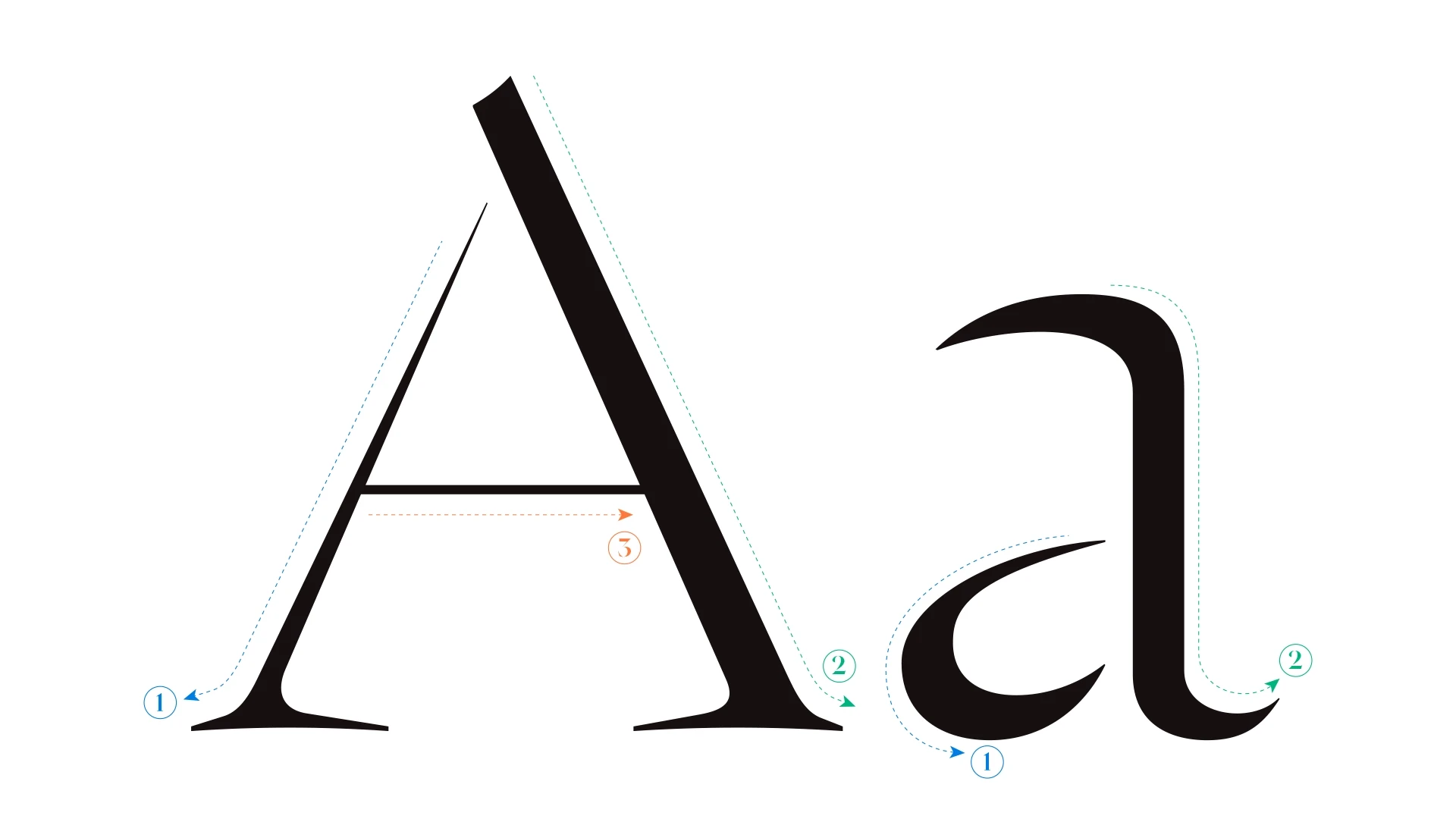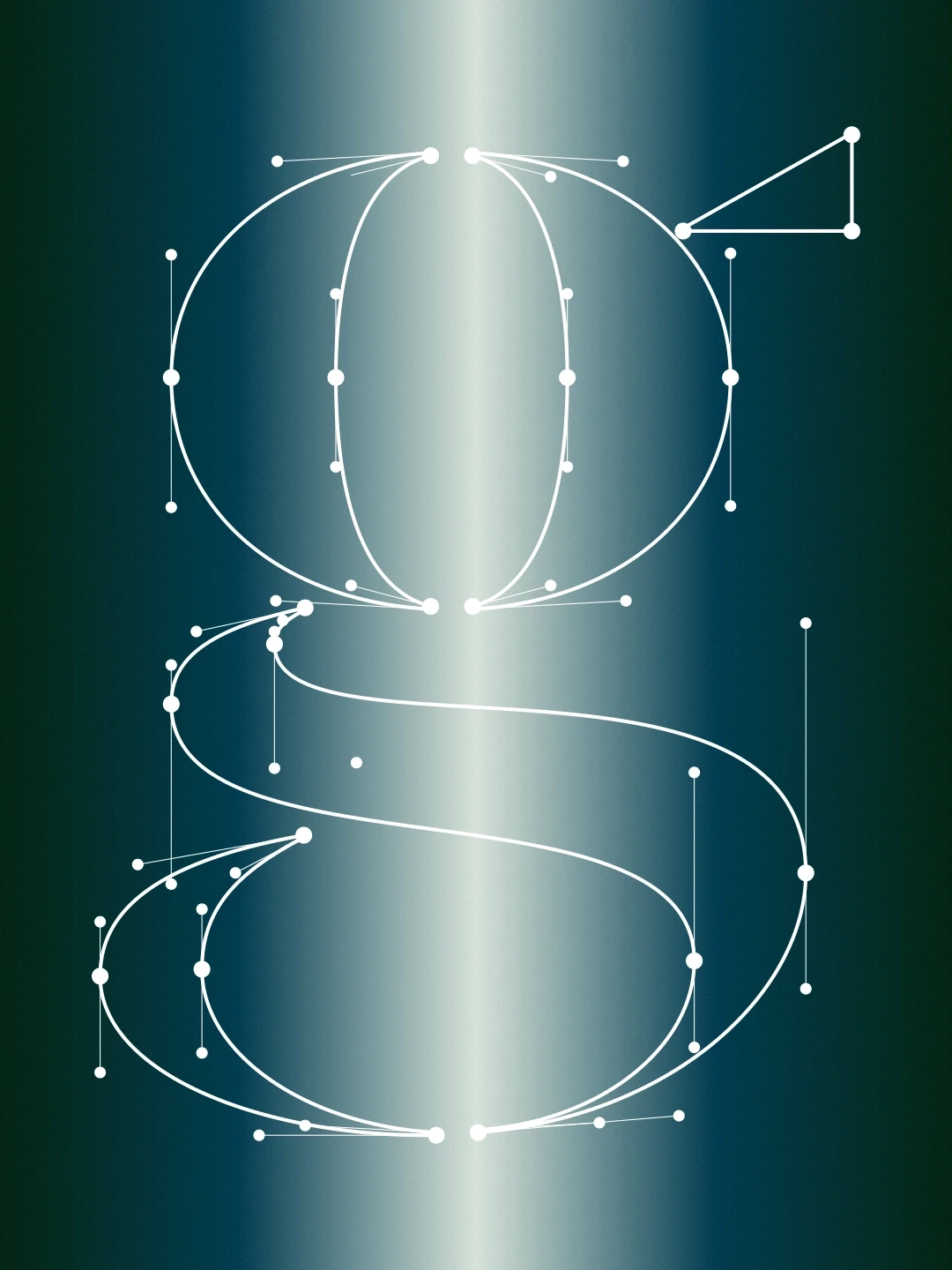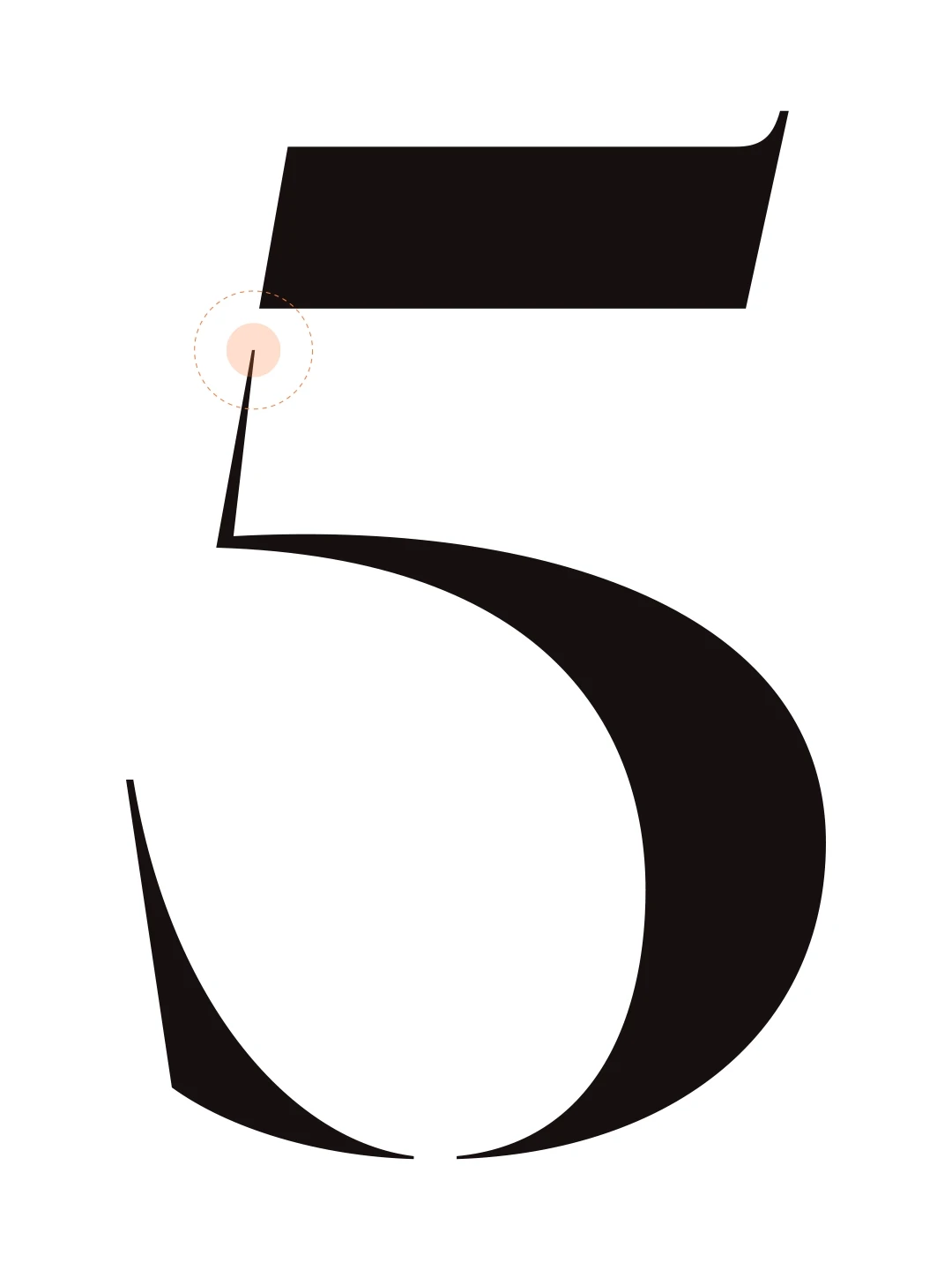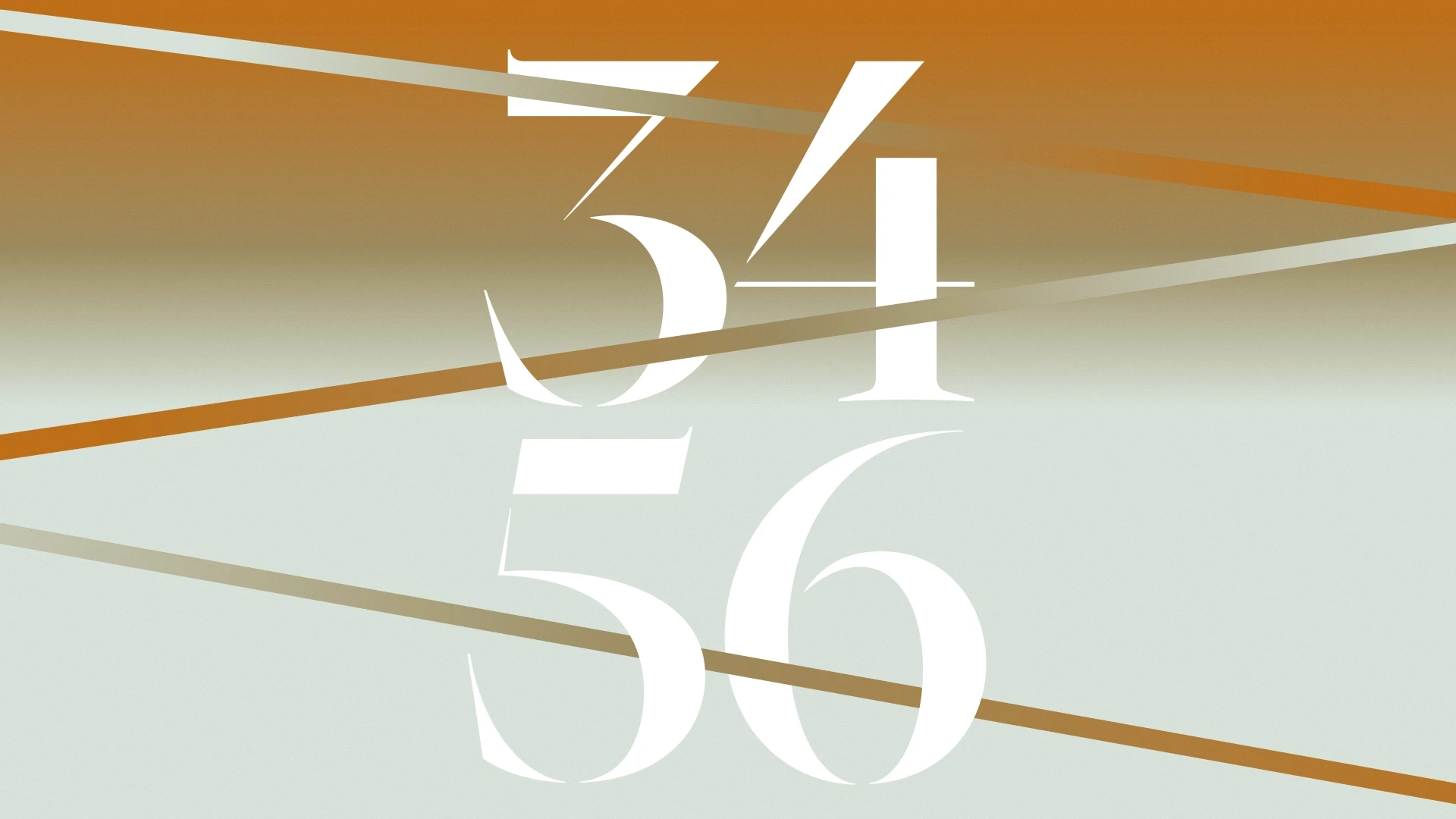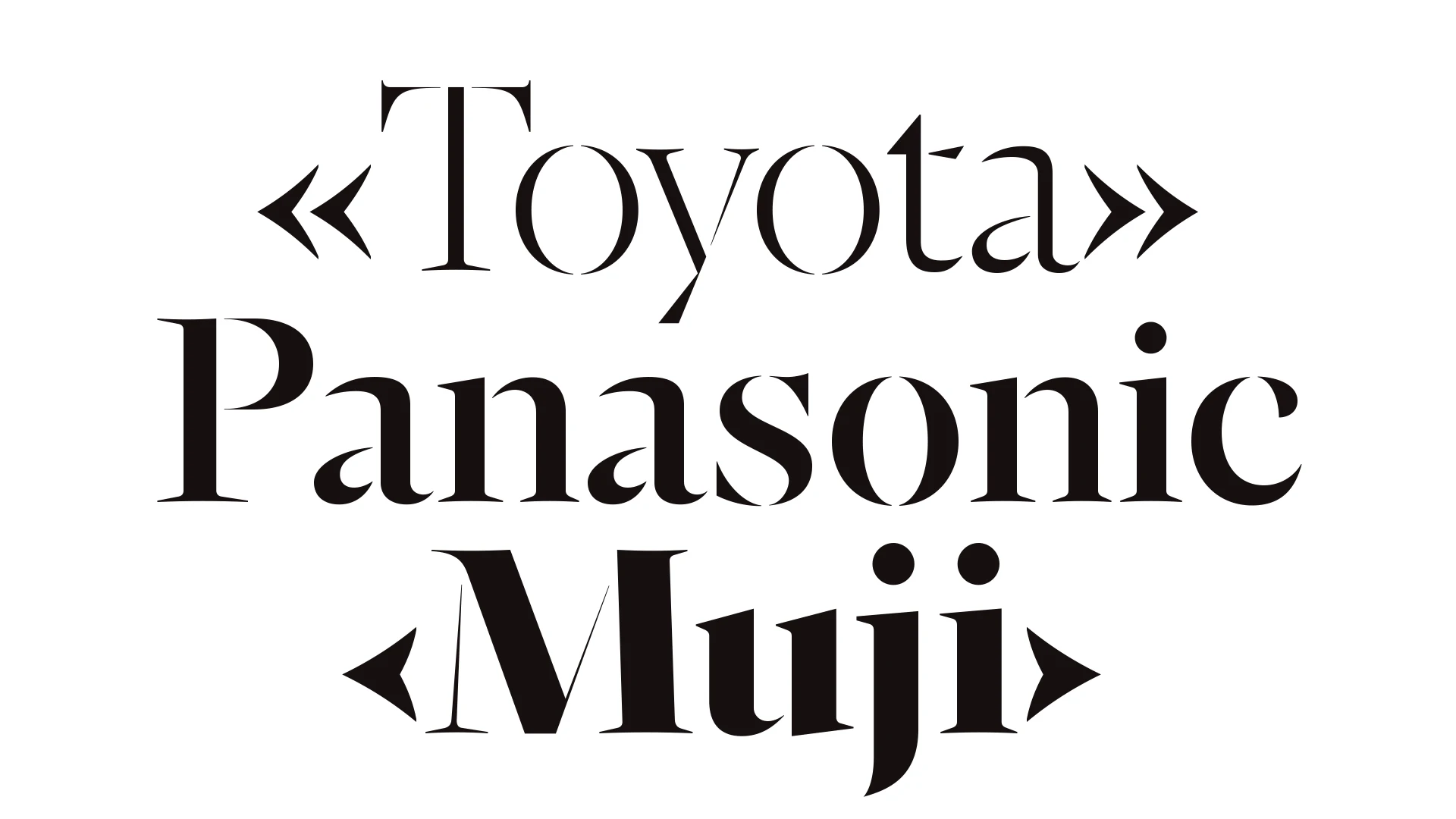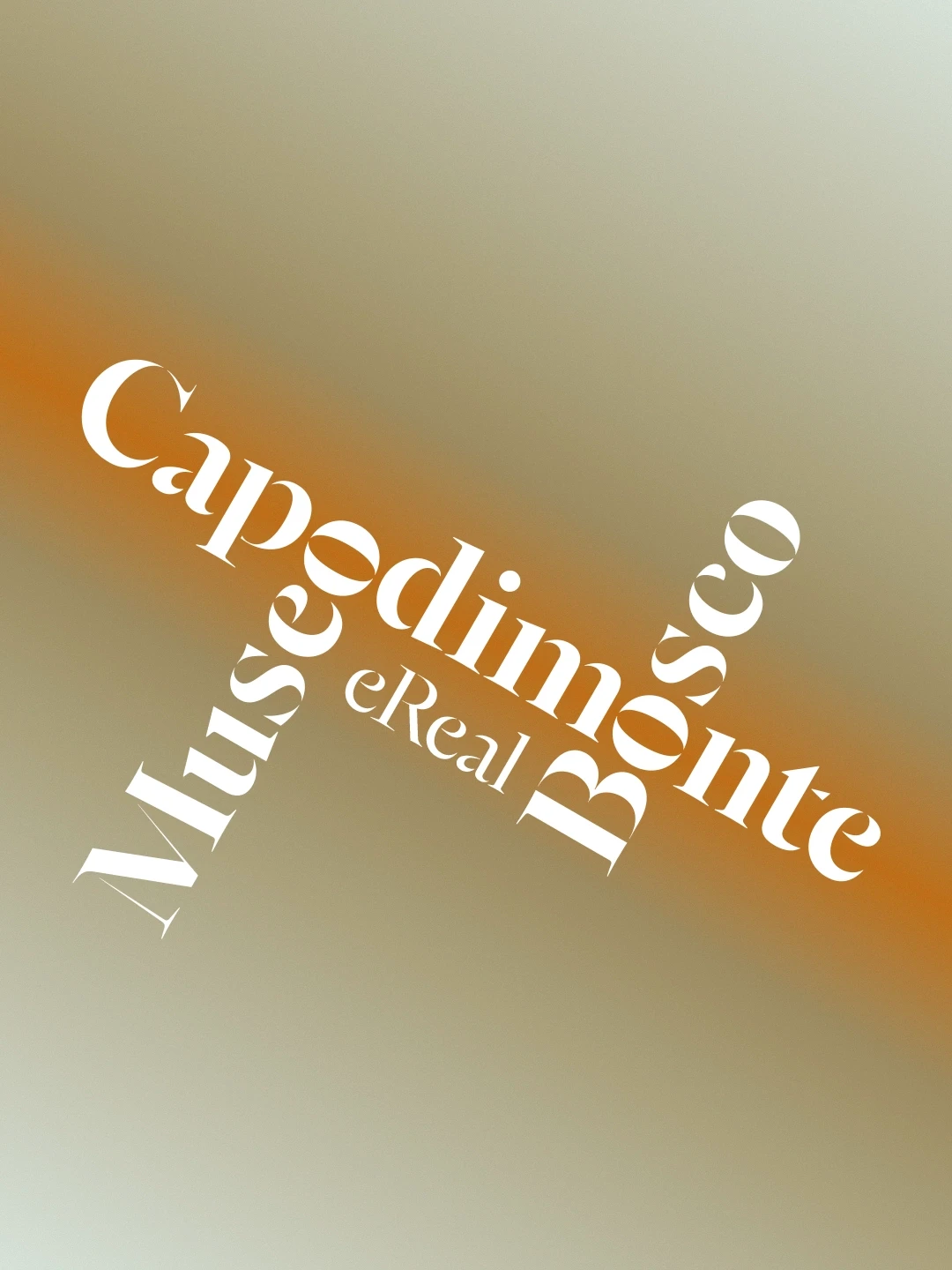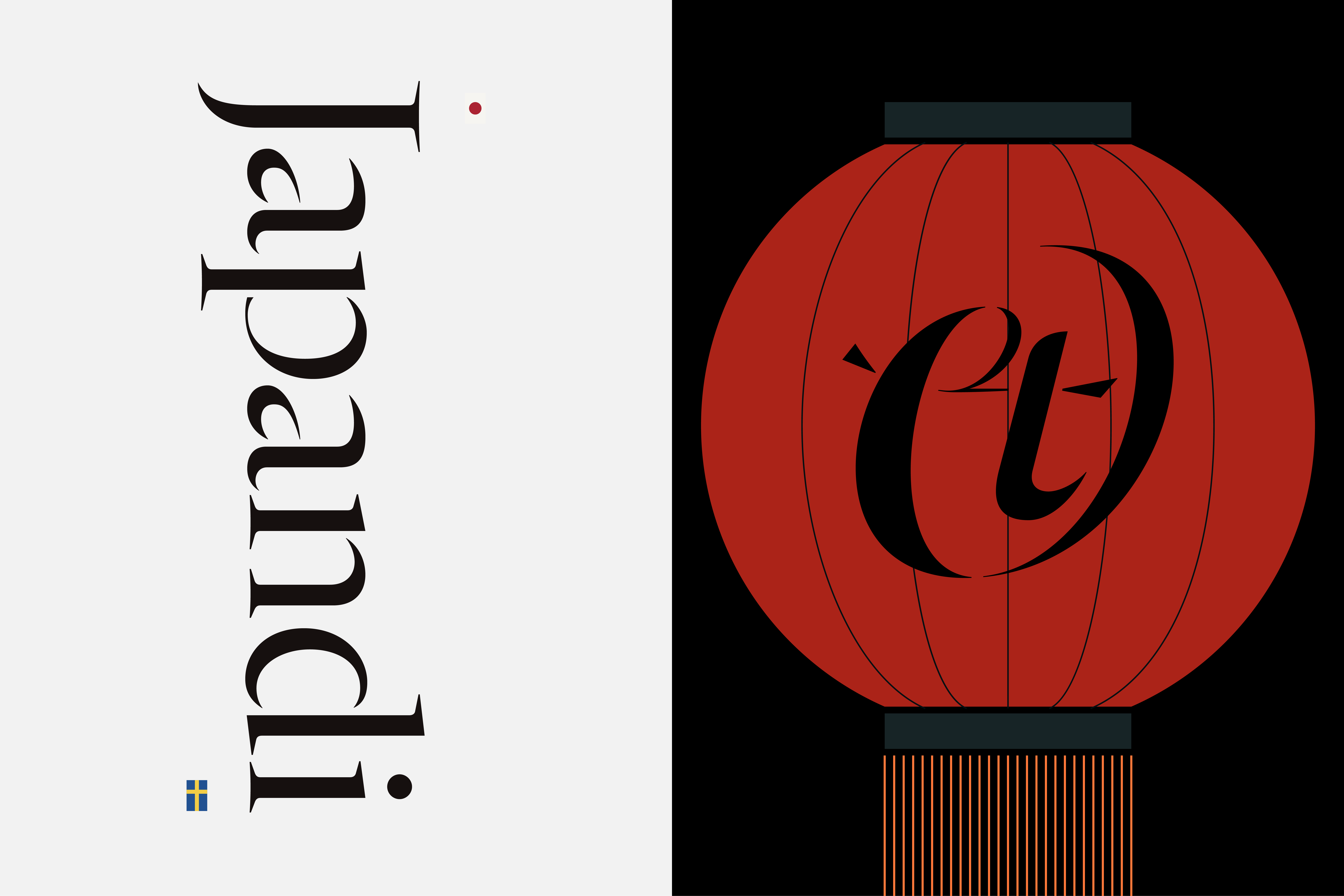
FH Enso is a typographic interpretation of the Zen circle -an ensō- drawn in a single, fluid motion to express the beauty of imperfection. Rooted in Japanese calligraphy, its letterforms reveal gaps, asymmetries and soft discontinuities that invite reflection. Designed with a wabi-sabi ethos, FH Enso resists perfection, offering instead a quiet balance between structure and spontaneity.
Classification: Display / Serif